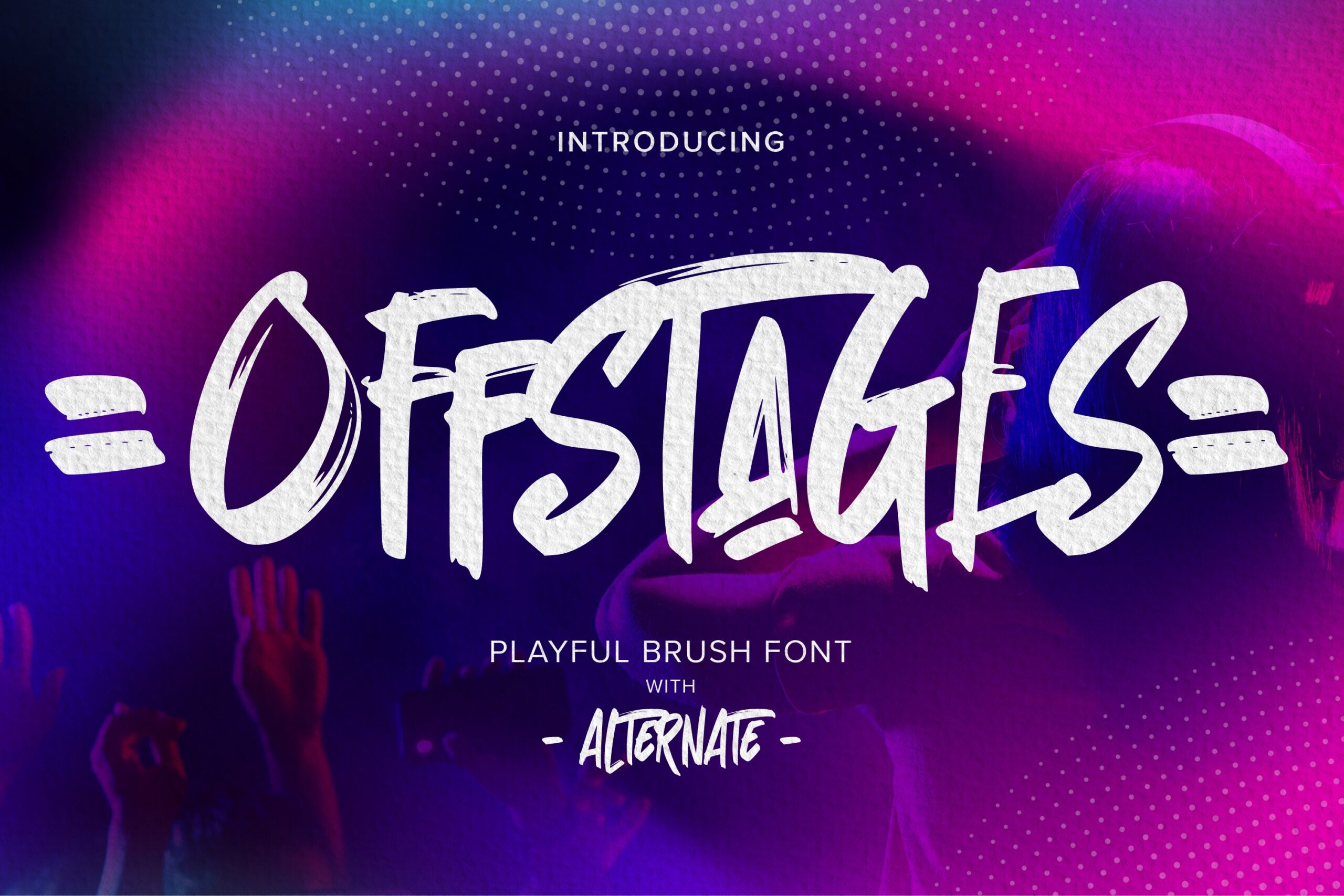
Offstages – Playful Brush Font With Alternate Display Font is an Authentic brush Font that is written casually and quickly.
That is why Offstages has a authentic, and strong characteristic more natural look.
Offstages Perfect for designs, branding projects, Logo design,Quotes product packaging and another Project that require cool strong display font.
- Alternate glyphs